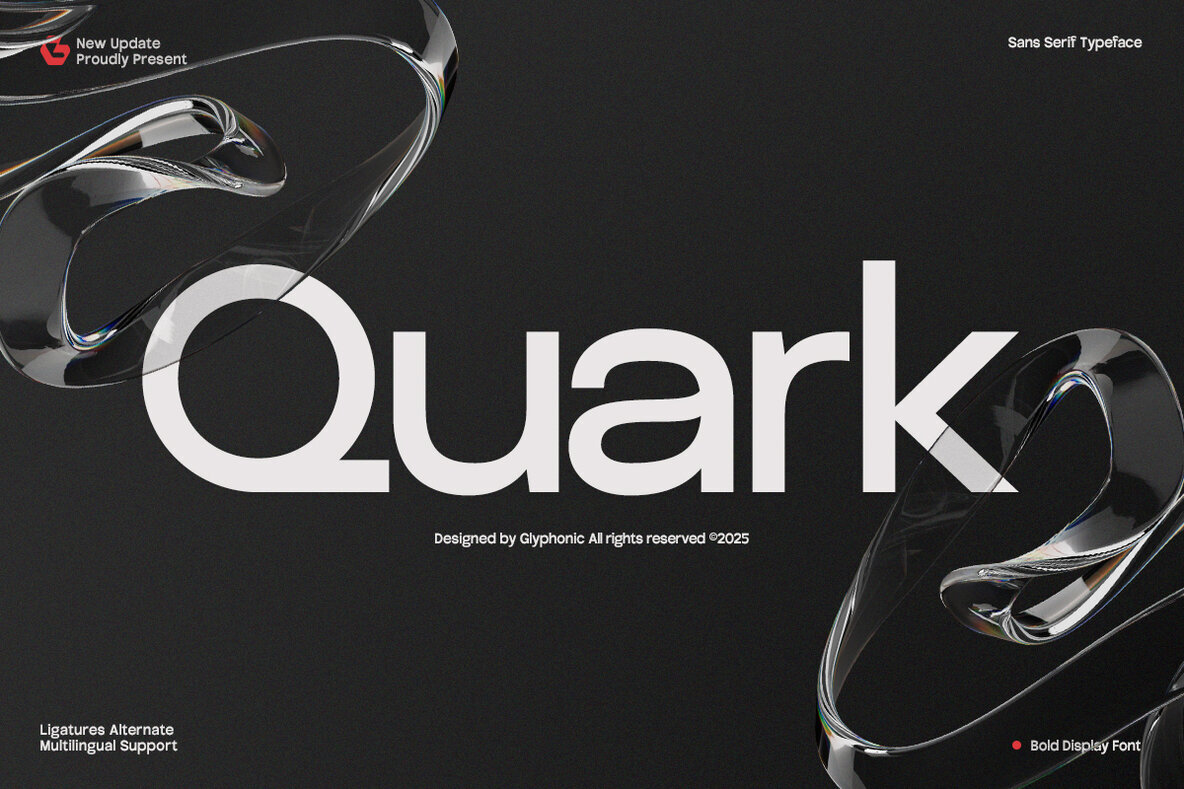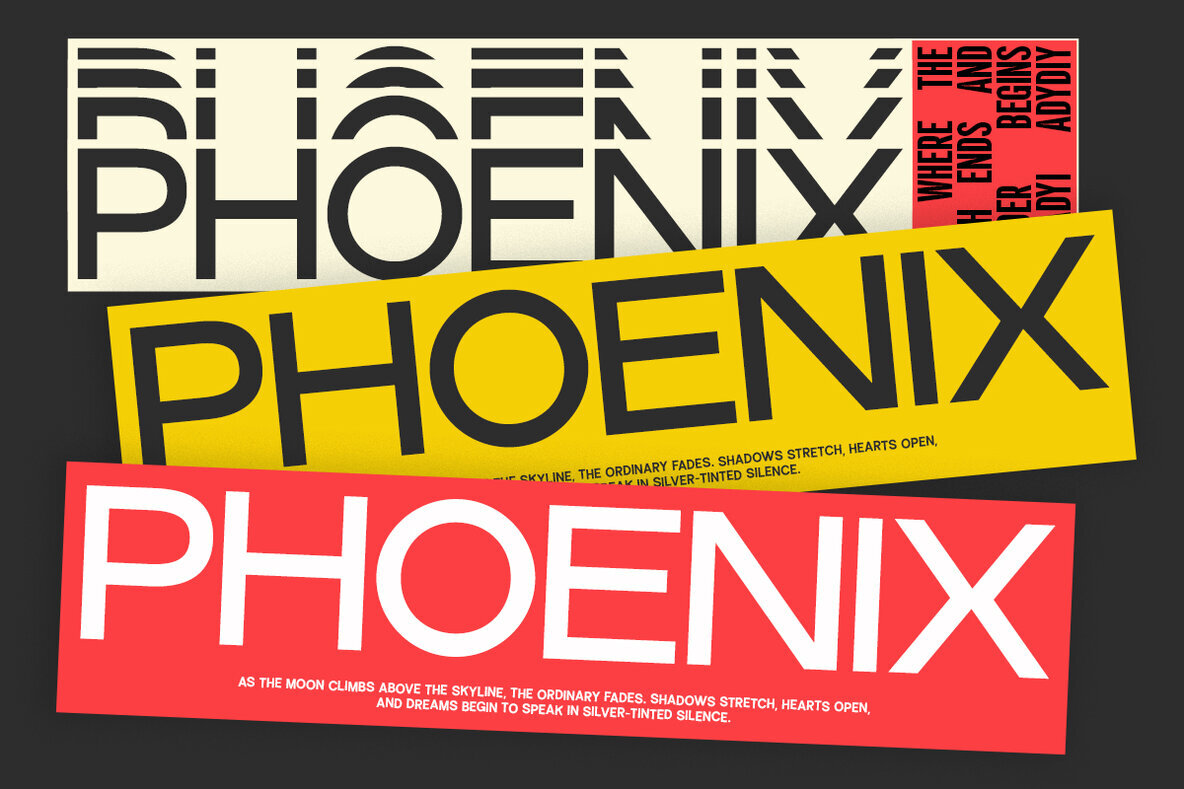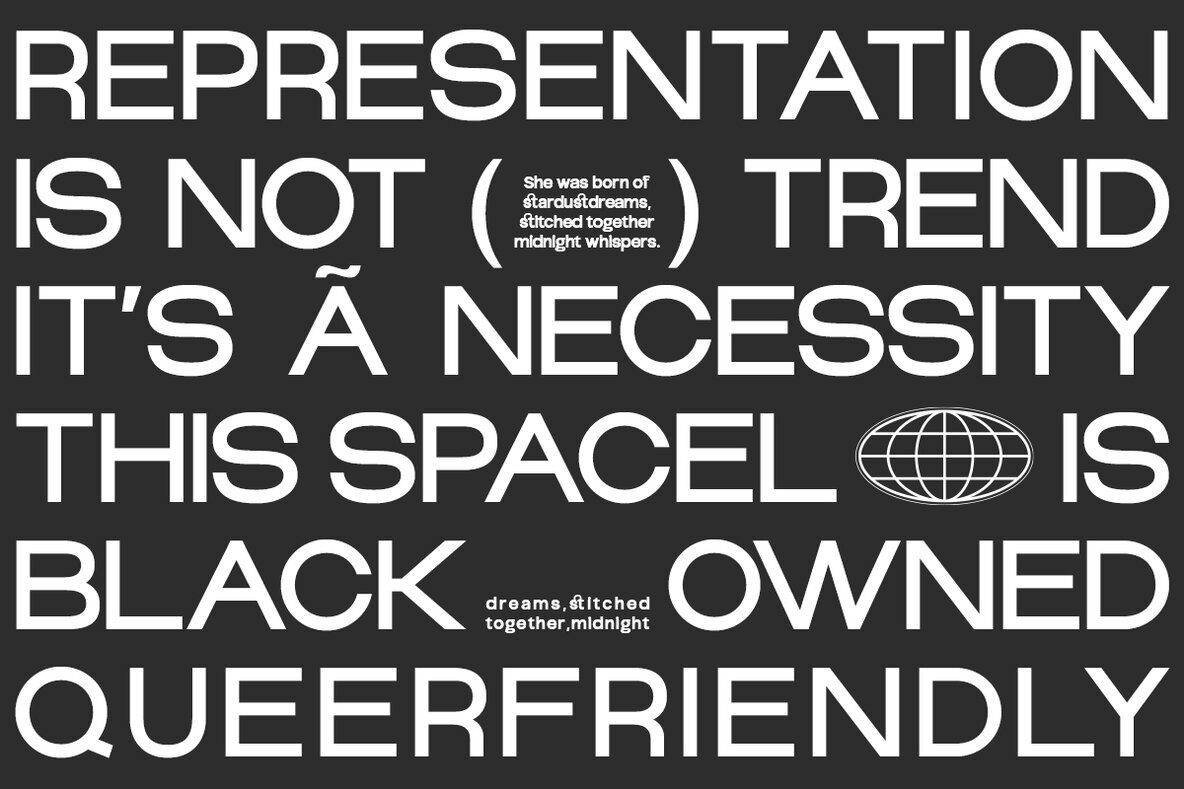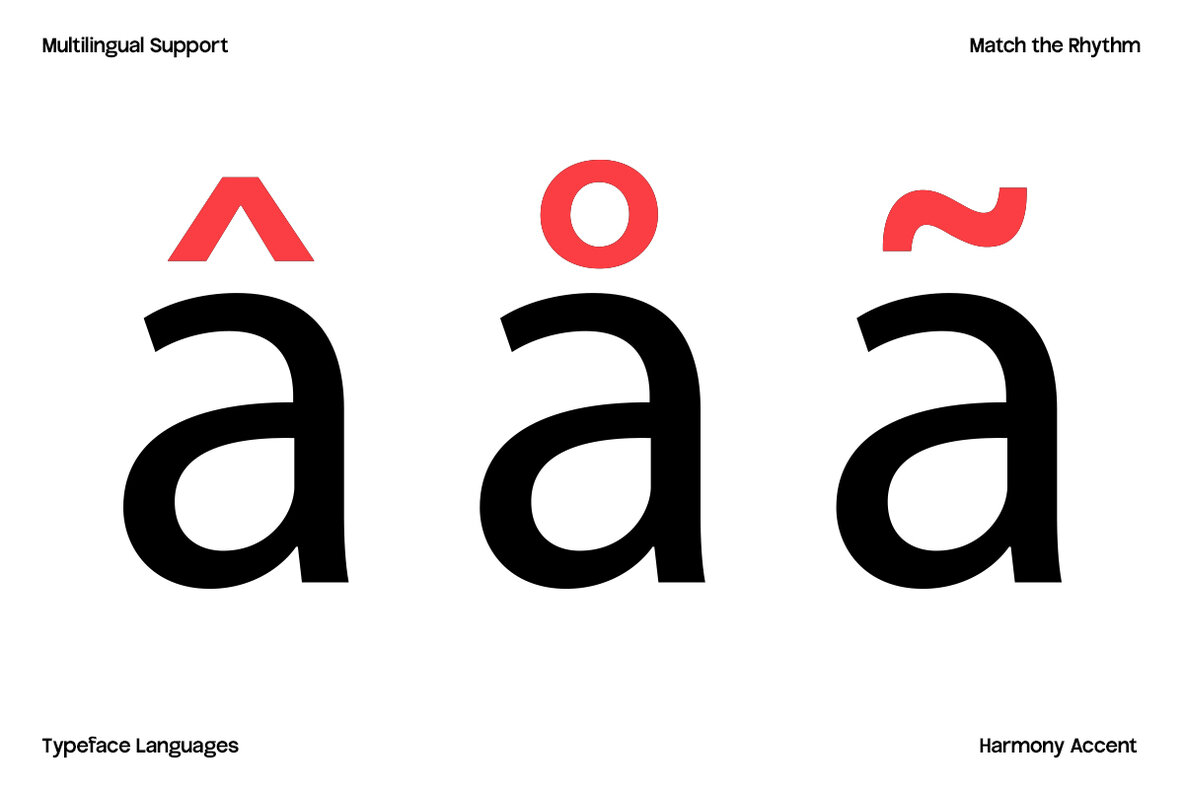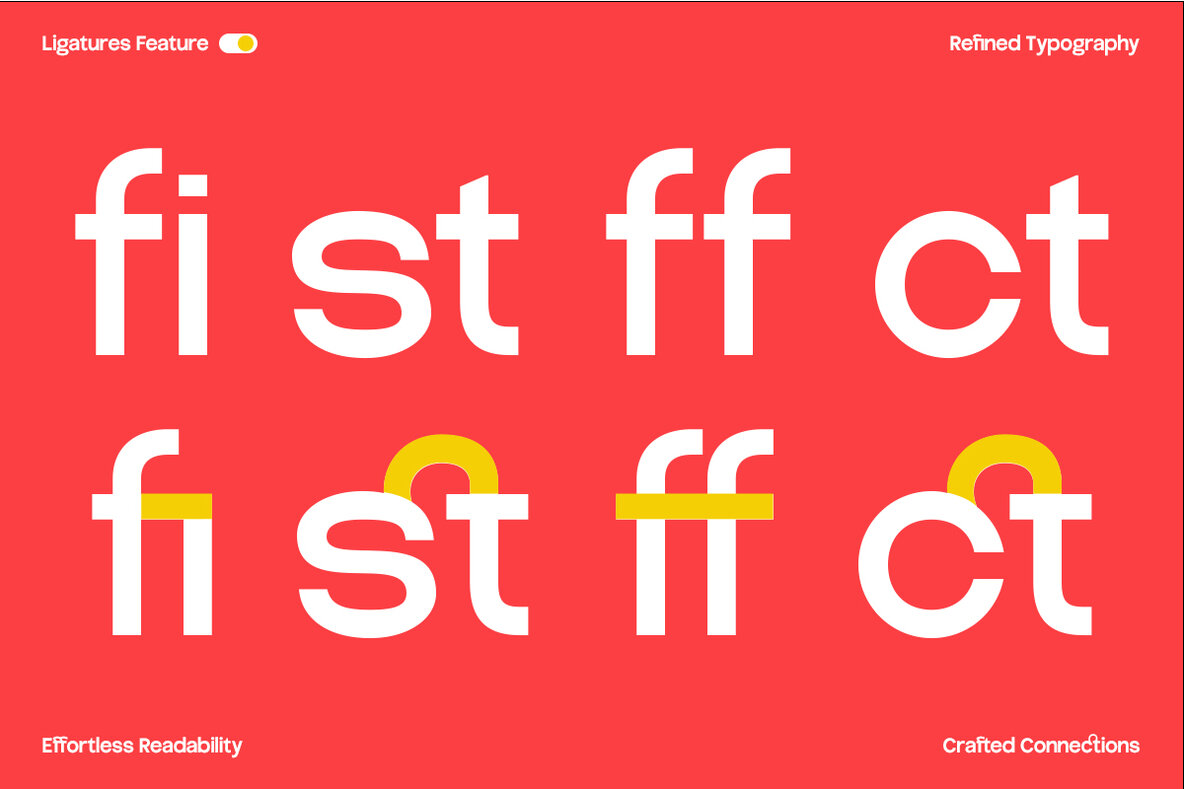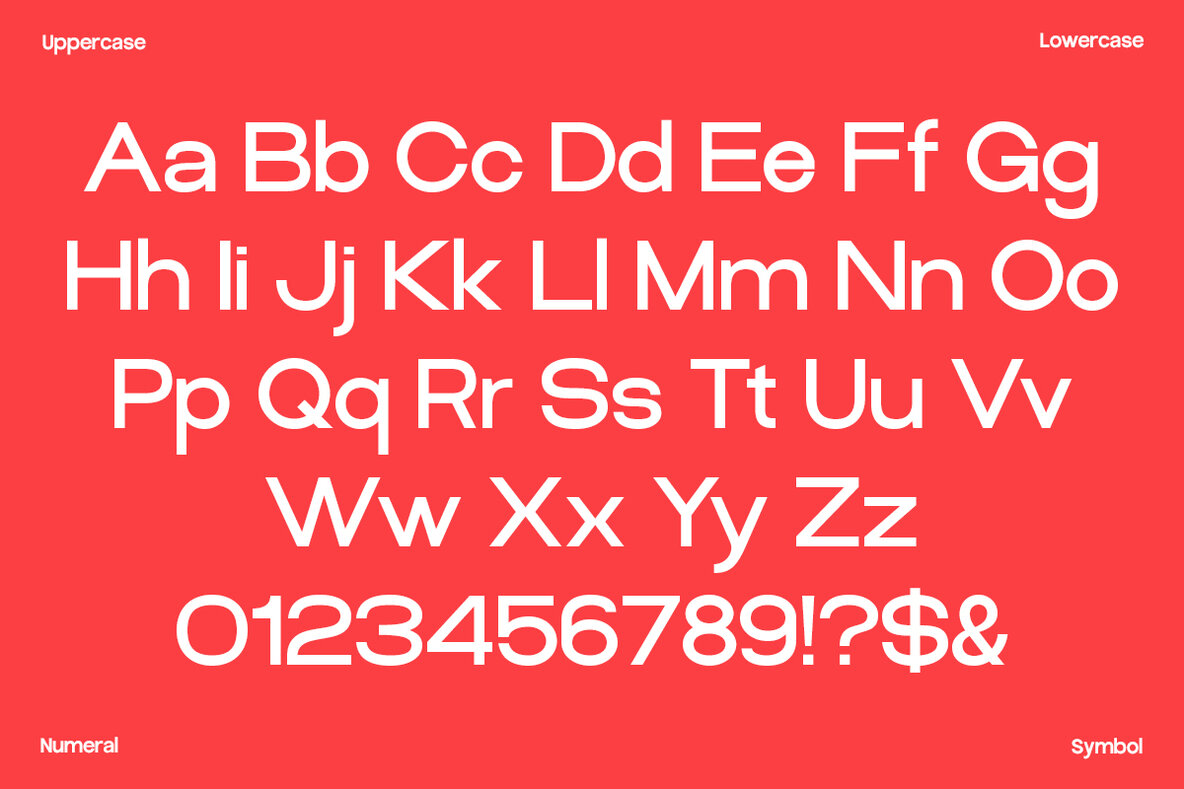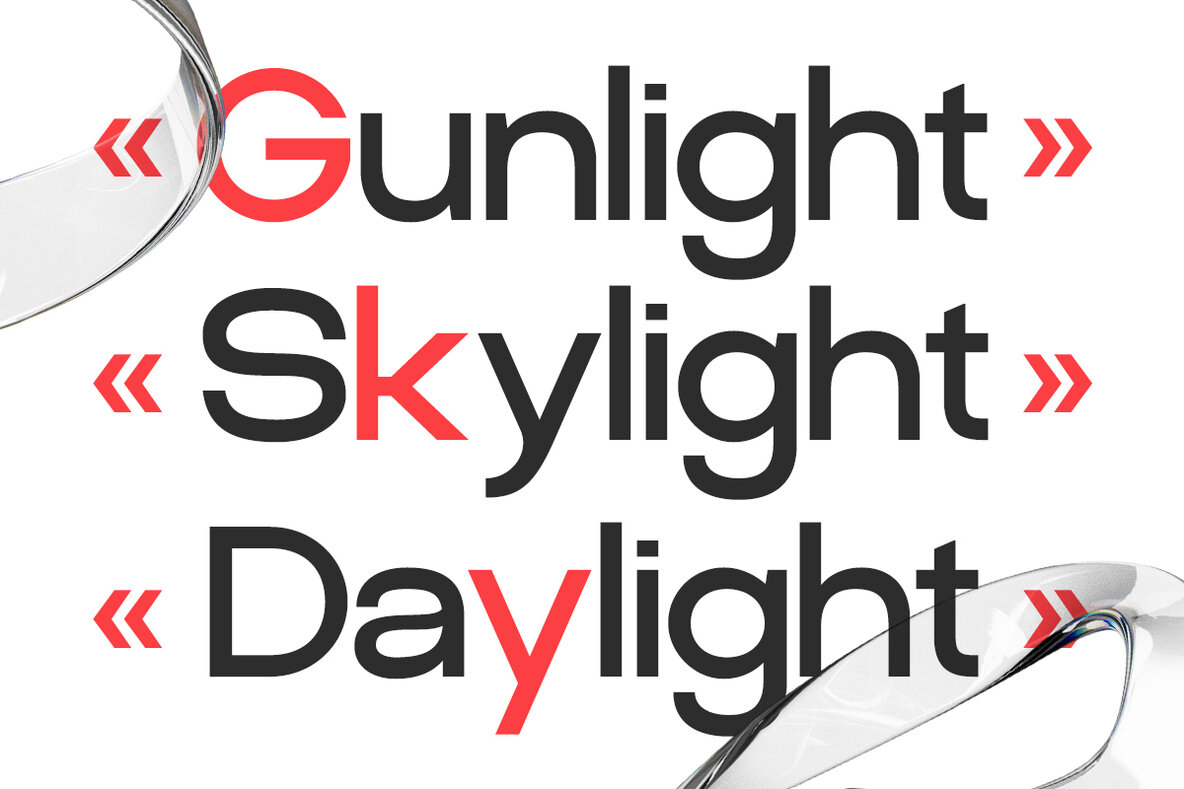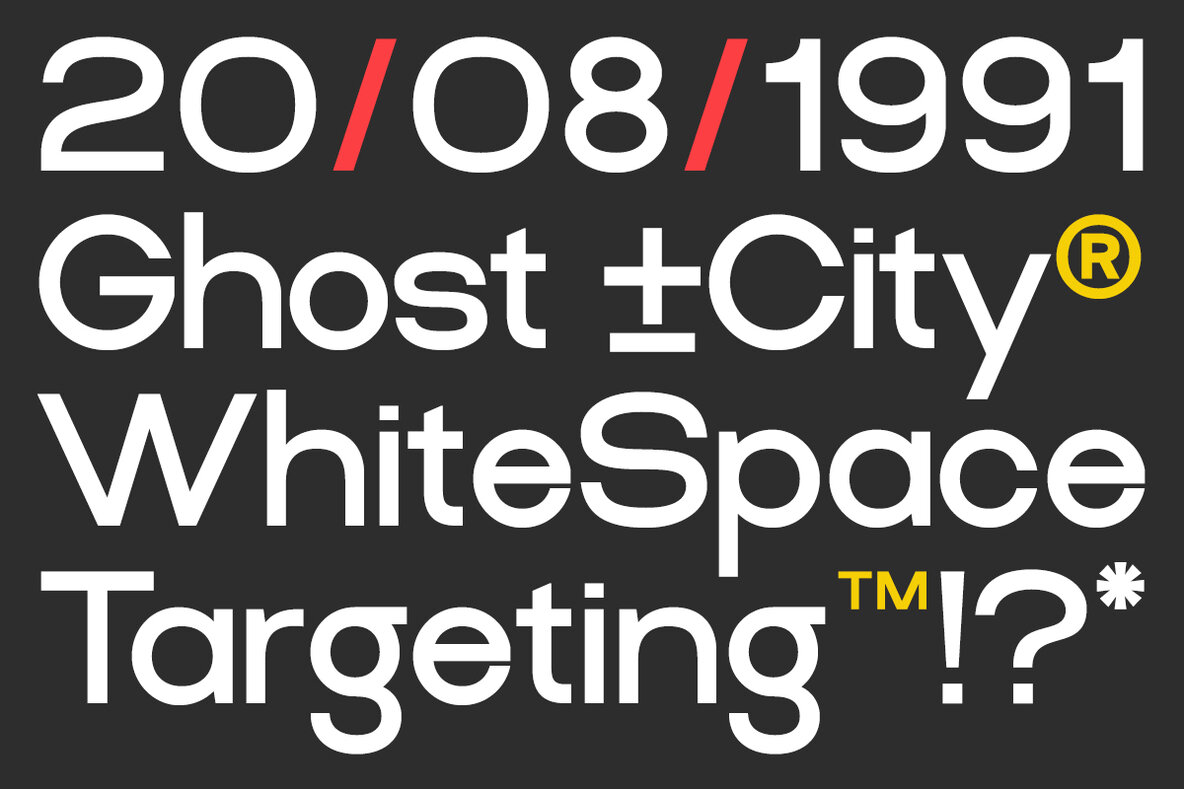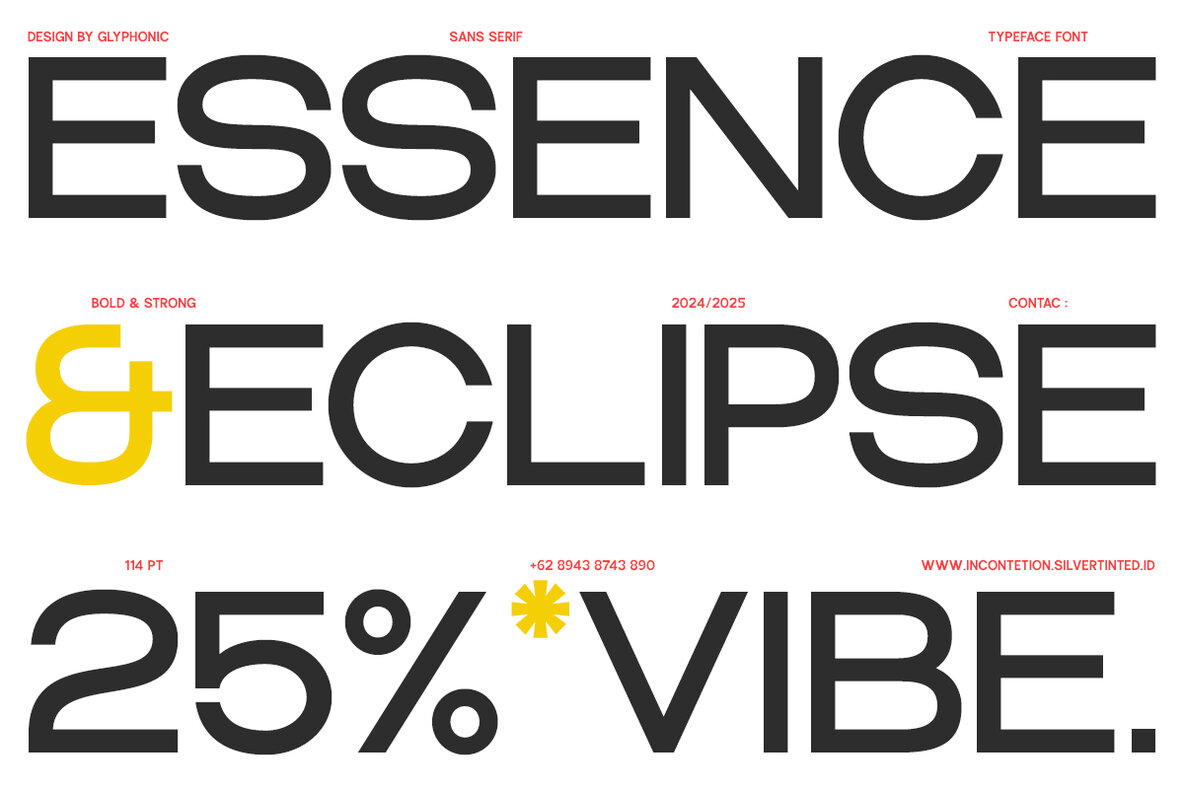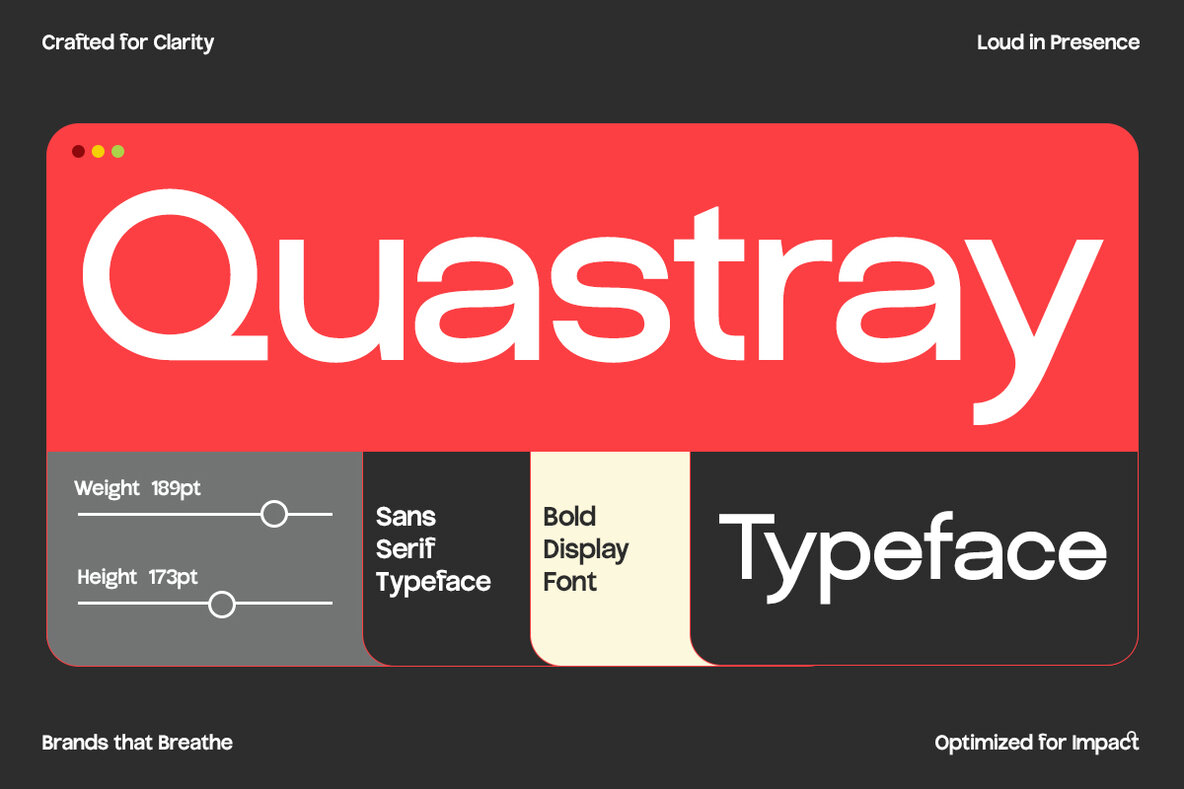
GC Quark Font
GC Quark Regular
GC Quark is a contemporary sans-serif typeface that merges minimalist design with refined clarity. It embodies a sophisticated modernity while maintaining readability, ideal for branding, editorial layouts, logos, user interfaces, and product packaging. Featuring clean lines, consistent stroke widths, and geometric symmetry, GC Quark offers a crisp and professional aesthetic. Its letterforms strike a balance between technical precision and elegance, making it a versatile asset for designers in tech, fashion, architecture, and lifestyle brands. Features: GC Quark brings a bold, refined, and timeless quality to your designs.GC Quark: Modern Sans-Serif Mastery